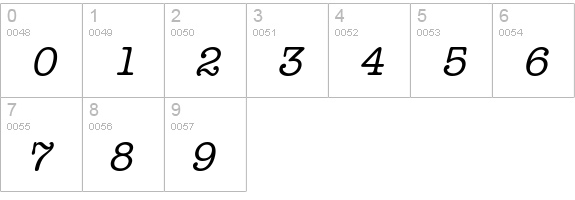
Typist Italic Font Details
Typist Italic is a distinctive, italic variant in the Typist typeface family \xE2\x80\x94 well suited to design and typography projects.
Introducing Typist Italic font, a stunning and versatile typeface that effortlessly combines elegance with a touch of modernity. This font is the perfect choice for those seeking a unique and stylish look for their projects. With its delicate and slanted letterforms, Typist Italic exudes a sense of sophistication and grace, making it ideal for various design applications. The clean and smooth lines of Typist Italic create a visually pleasing aesthetic, allowing each character to seamlessly flow into the next. Whether you're designing elegant wedding invitations, sophisticated logos, or eye-catching headlines, this font is sure to captivate your audience and elevate your design to new heights. One of the most enticing aspects of Typist Italic is that it is free to download at FontsMarket.com. This means that you can add this stunning font to your collection without any cost, making it even more accessible for designers, artists, and enthusiasts alike. With just a few clicks, you can enhance your creative projects with the timeless beauty of Typist Italic. The versatility of Typist Italic knows no bounds. Its unique blend of classic and contemporary elements allows it to seamlessly adapt to various design styles and contexts. Whether you're aiming for a vintage-inspired look or a sleek and modern aesthetic, Typist Italic will effortlessly complement your vision. The attention to detail in each letterform of Typist Italic is truly remarkable. From the delicate curves to the precise angles, the craftsmanship shines through, creating a visually striking and harmonious typeface. This level of care and dedication ensures that each character is visually appealing, making Typist Italic a standout choice for any design project. So why wait? Embrace the elegance and versatility of Typist Italic today. With its freely available download at FontsMarket.com, you have the opportunity to enhance your designs with this exceptional font without breaking the bank. Unleash your creativity and elevate your projects with the timeless beauty of Typist Italic - a font that will leave a lasting impression.